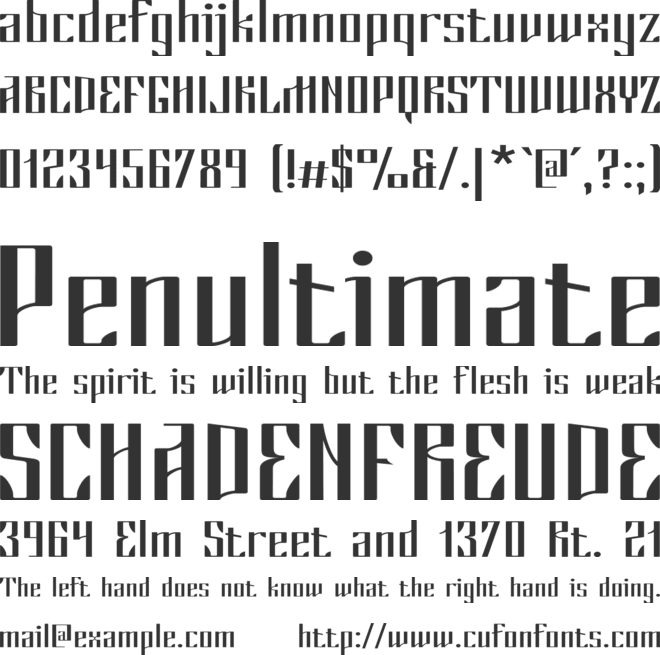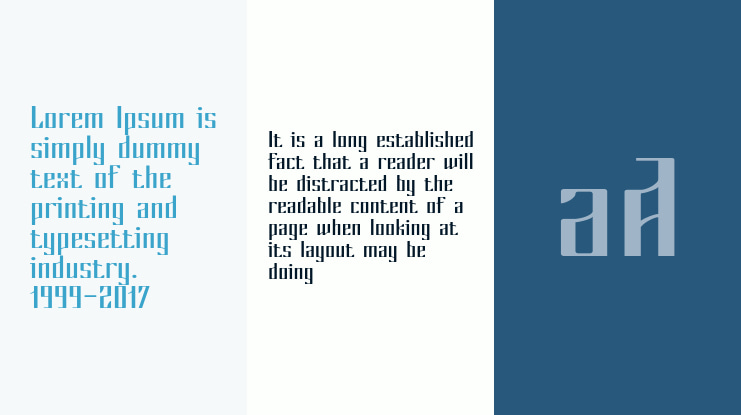
Myla Font
With Myla Font, you can make it easier to convey the message in your design. Use its eastern, old soviet inspired style for awesome display, labeling, clothing, movie screen, poster, movie title, gigs, album covers, logos, and much more.